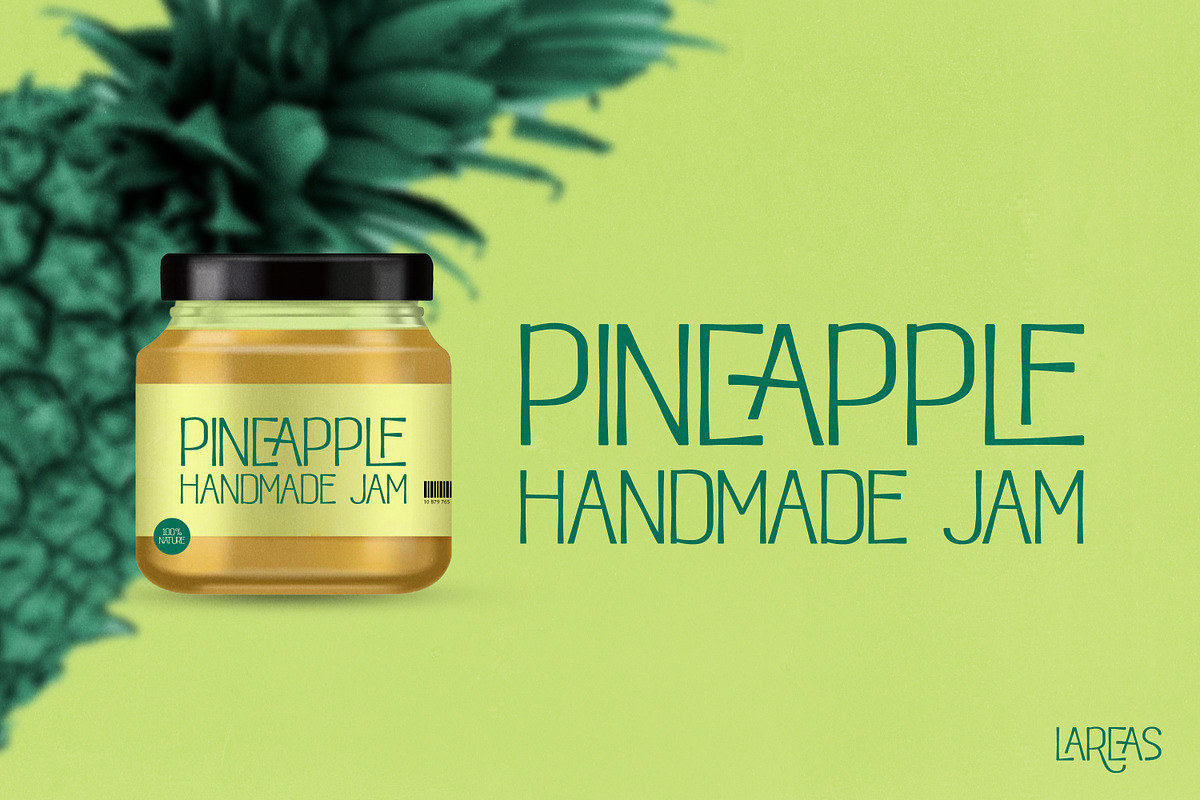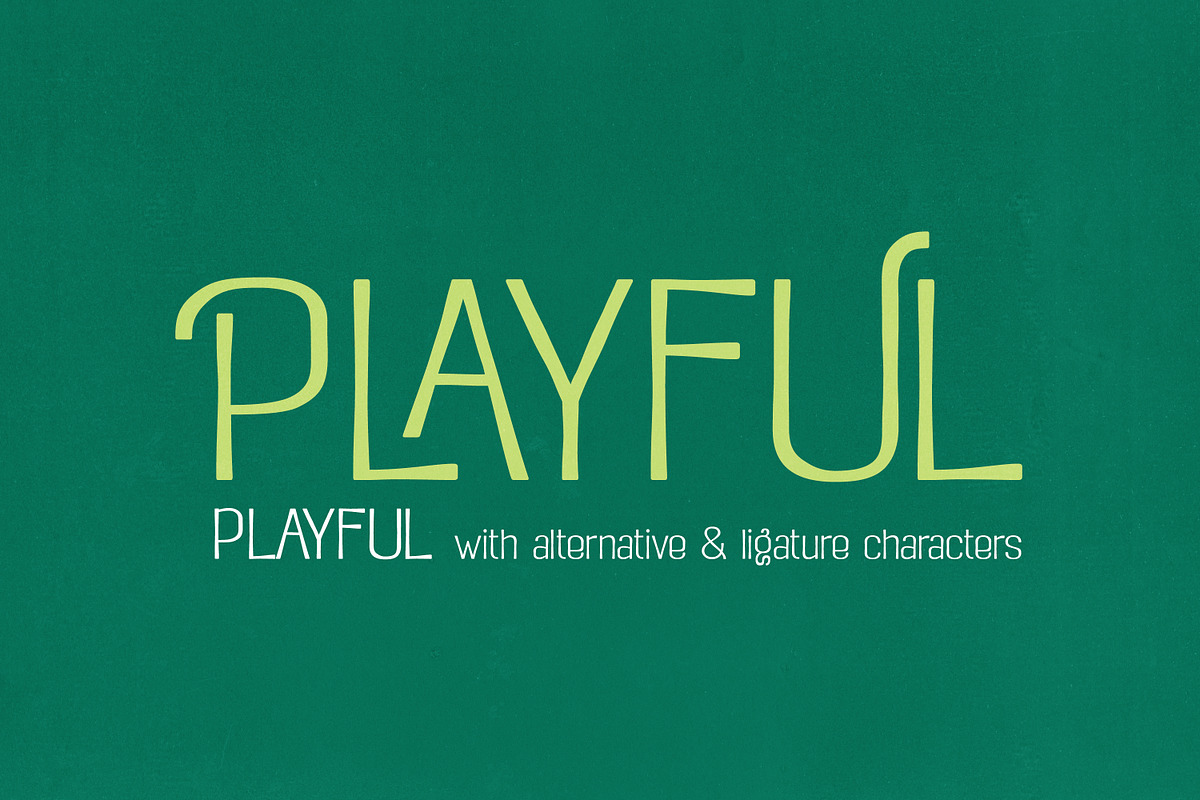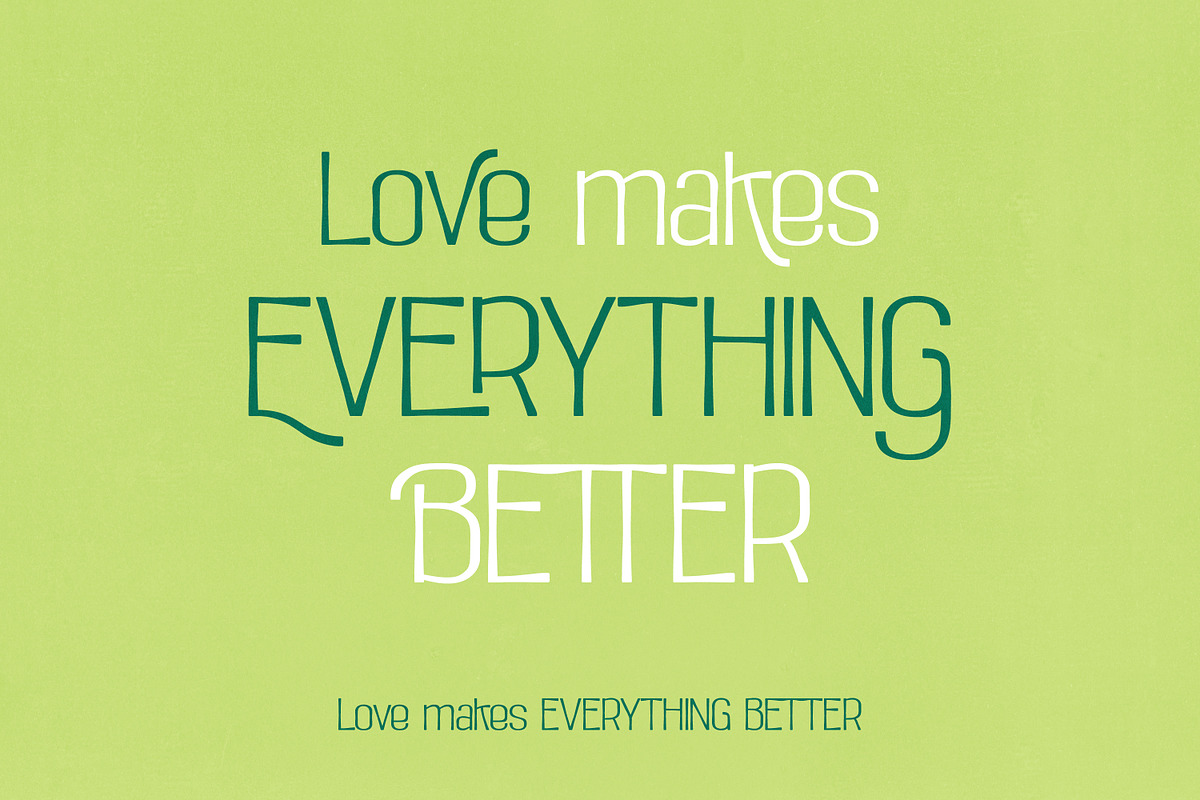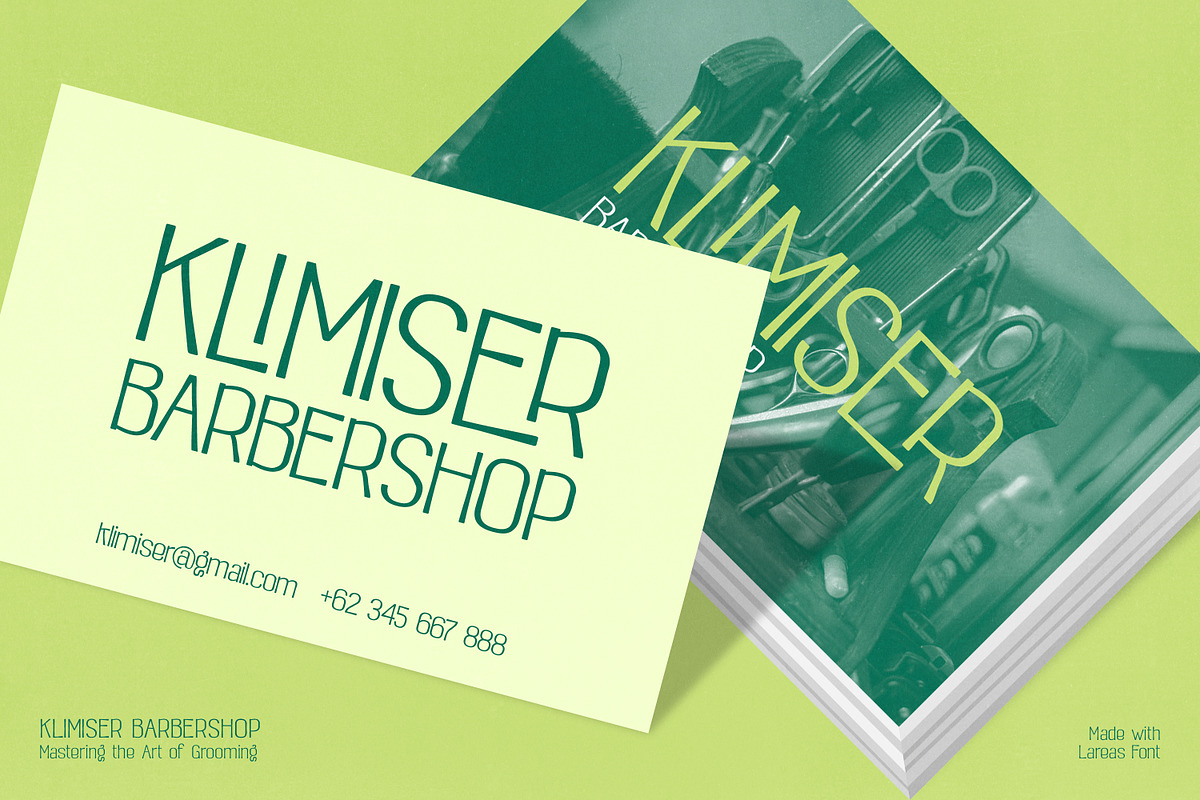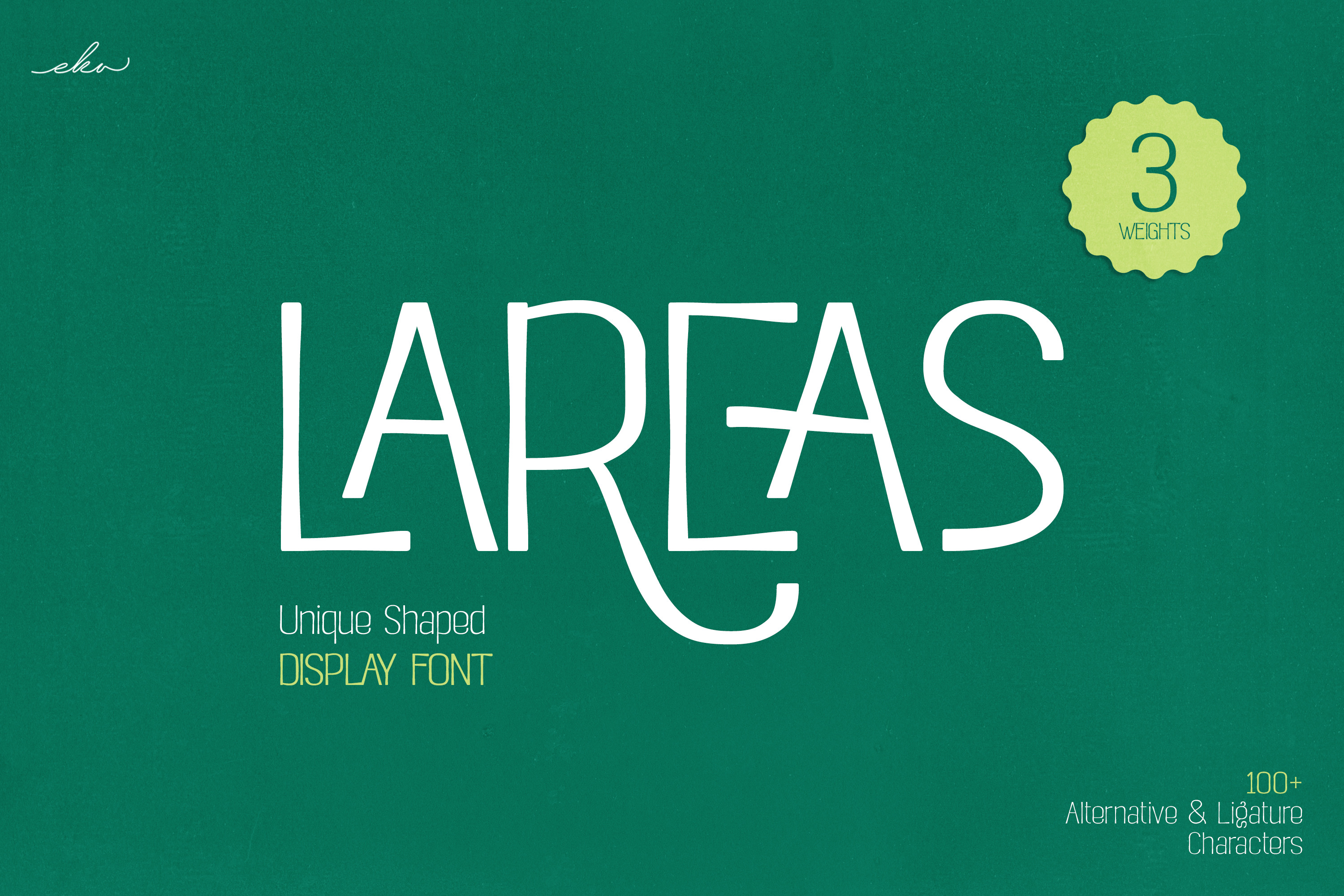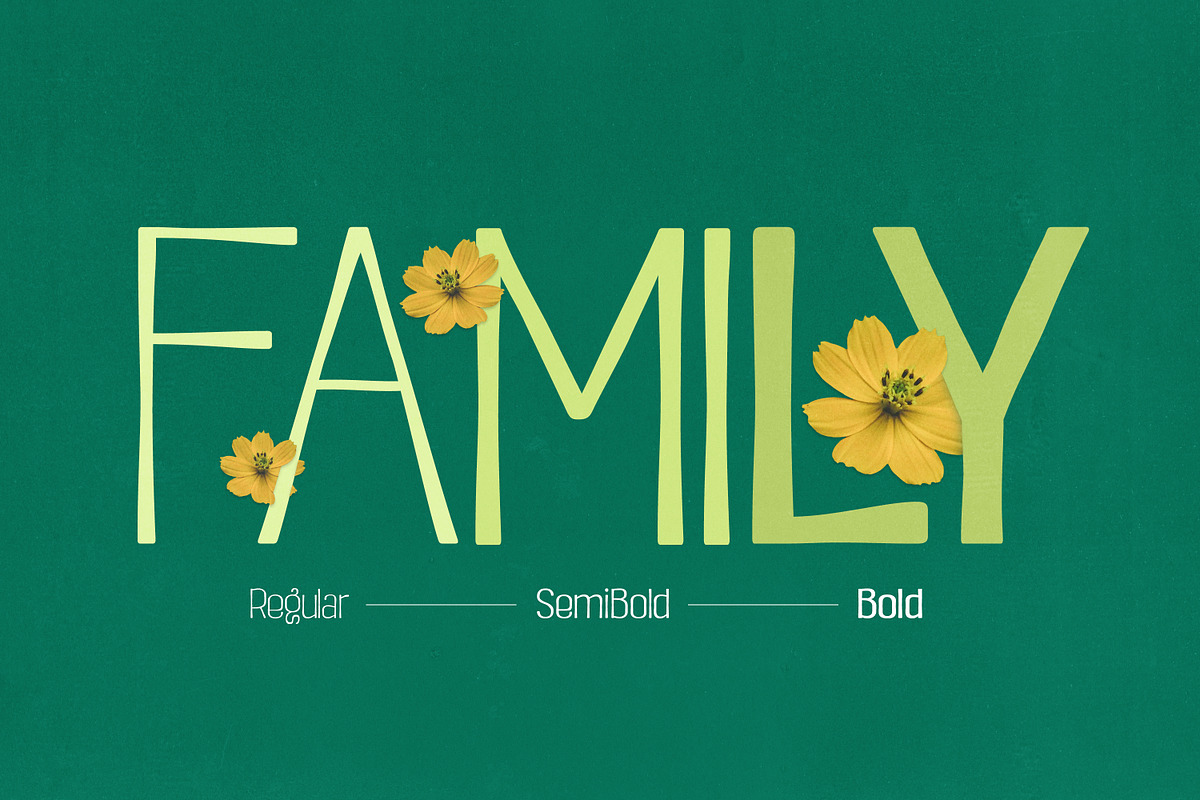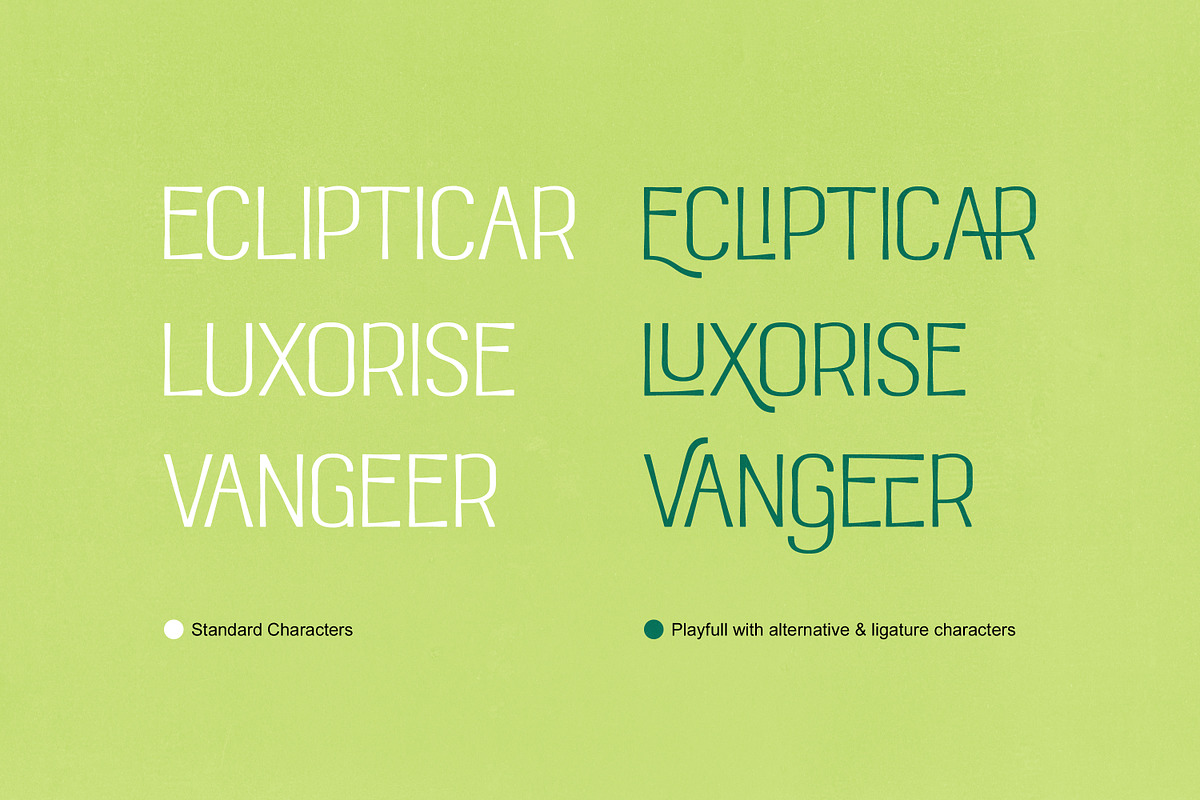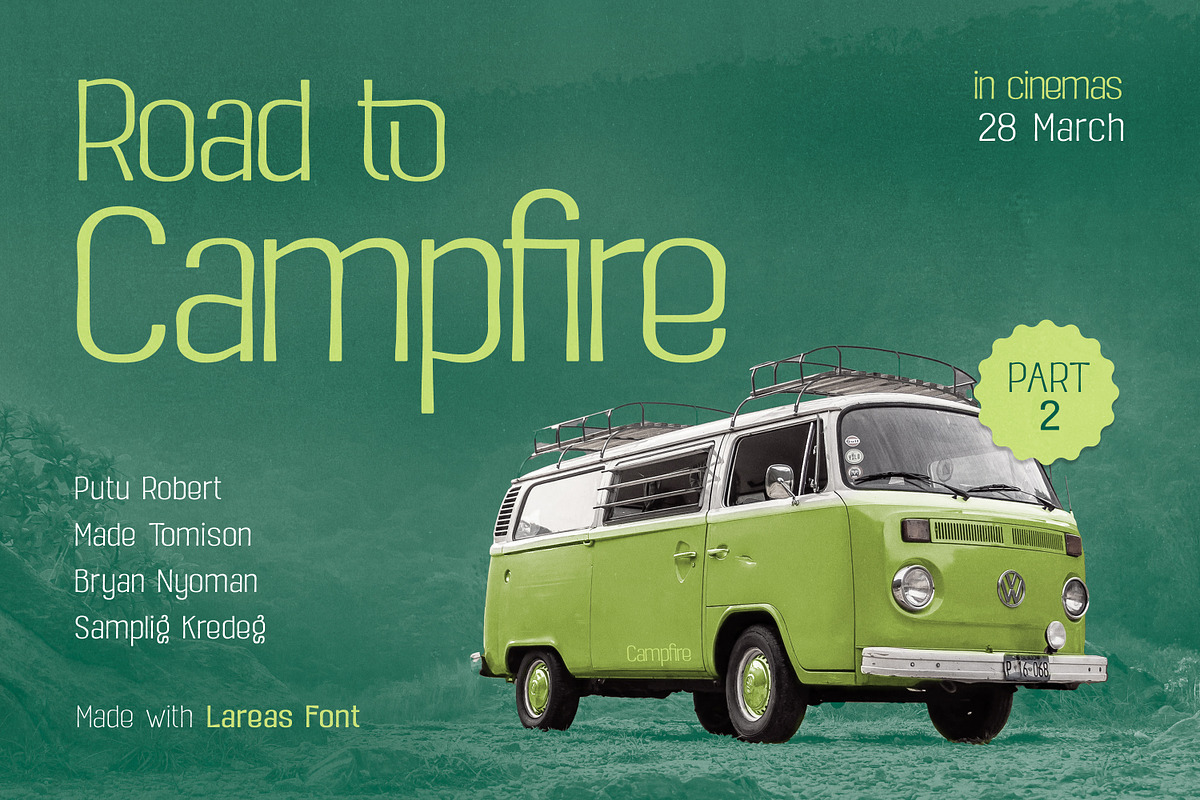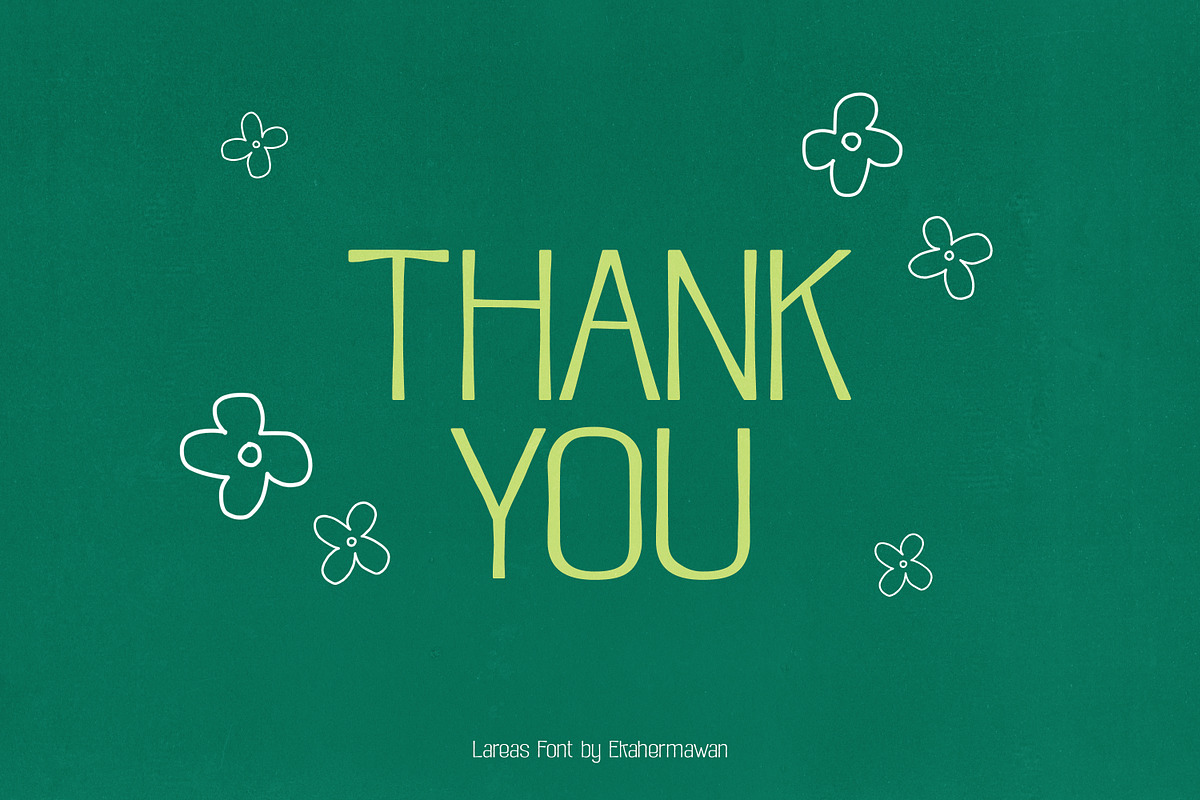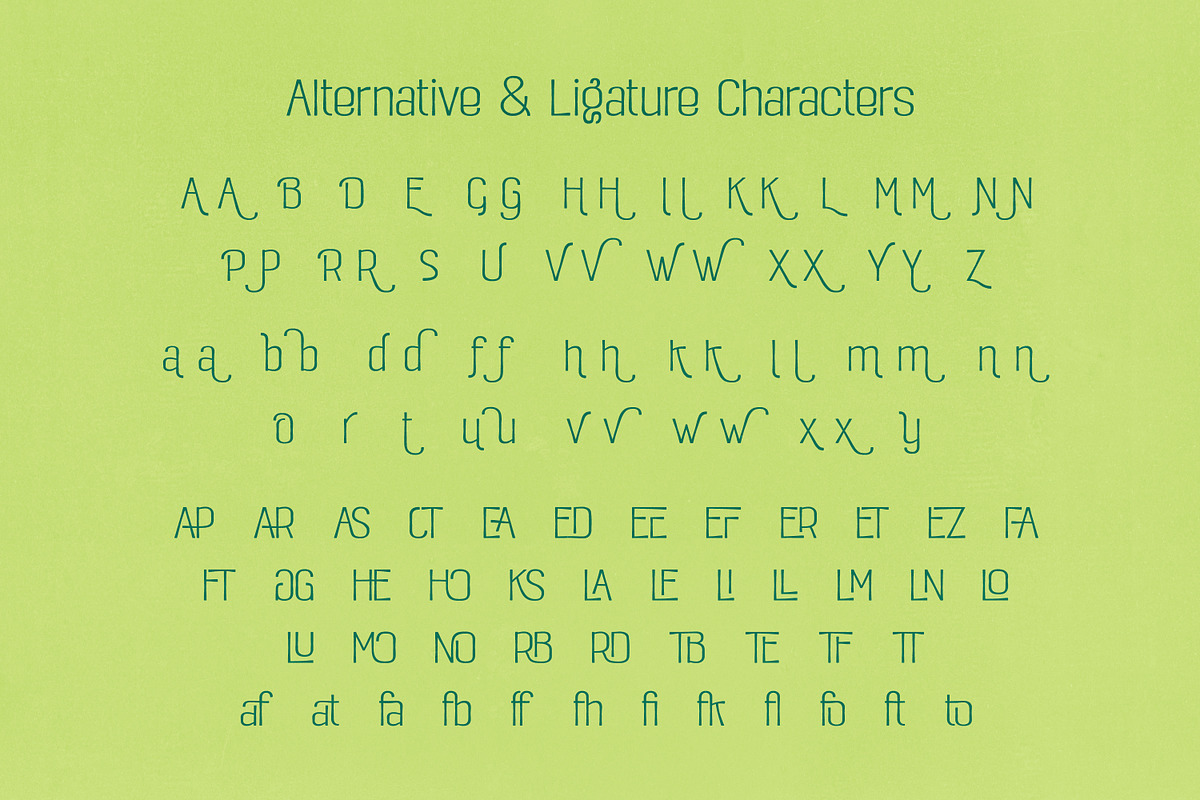
Lareas | Sans-serif Display Font
Unleash Your Creativity with Lareas – The Bold, Unique Font You've Been Searching For! Lareas is not just another font—it's a statement. Designed with striking, winding lines that break away from the ordinary, Lareas delivers a fresh, dynamic energy to your designs. Its uniquely curved and irregular shapes make it the perfect choice for projects that need to stand out and leave a lasting impression. Whether you're creating logos, posters, branding, or any other creative project, Lareas adds a distinctive, playful touch that grabs attention. With three versatile weights Regular, SemiBold and Bold, Lareas offers the flexibility you need for any design, from subtle accents to bold, eye-catching headlines. The font also comes with a selection of alternative characters, allowing you to customize your work and make it truly unique. In addition, Lareas features beautifully crafted ligatures, ensuring smooth letter connections and a polished, professional look.